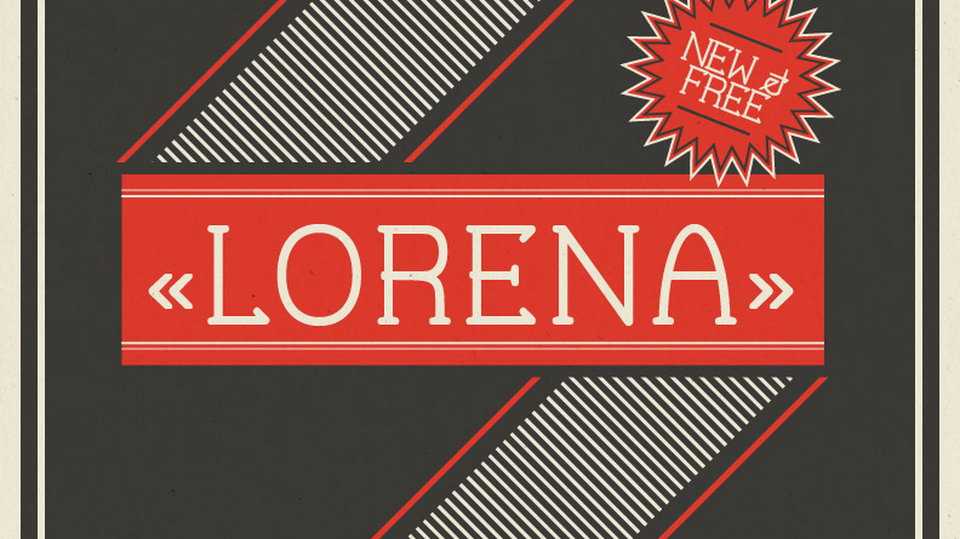
Download Lorena typeface, an elegant serif font family with retro feel in three weights. Lorena font family looks great for vintage design, crafts, cards, letterhead, wedding elements and other beautiful projects.
Designer: Arnold Hoepker